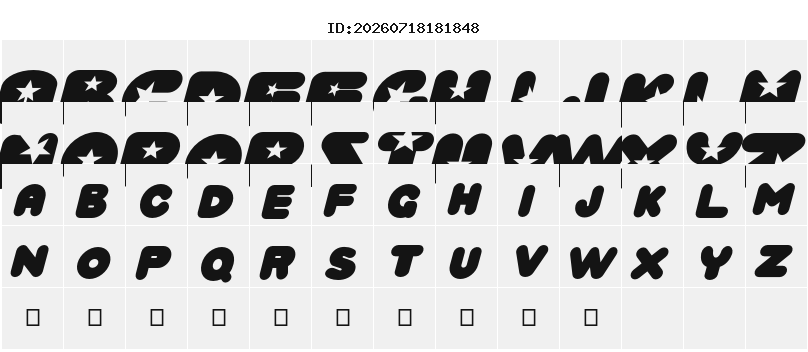
Crystal Universe Oblique Preview
• Font Name: Crystal Universe Oblique
• Font Style: Oblique
• Full Font Name: Crystal Universe Oblique
• PostScript Name: CrystalUniverse-Oblique
Crystal Universe Oblique.otf is a modern, elegant sans-serif font designed for ultimate readability and visual harmony. Perfect for branding, headlines, web design, and print materials.